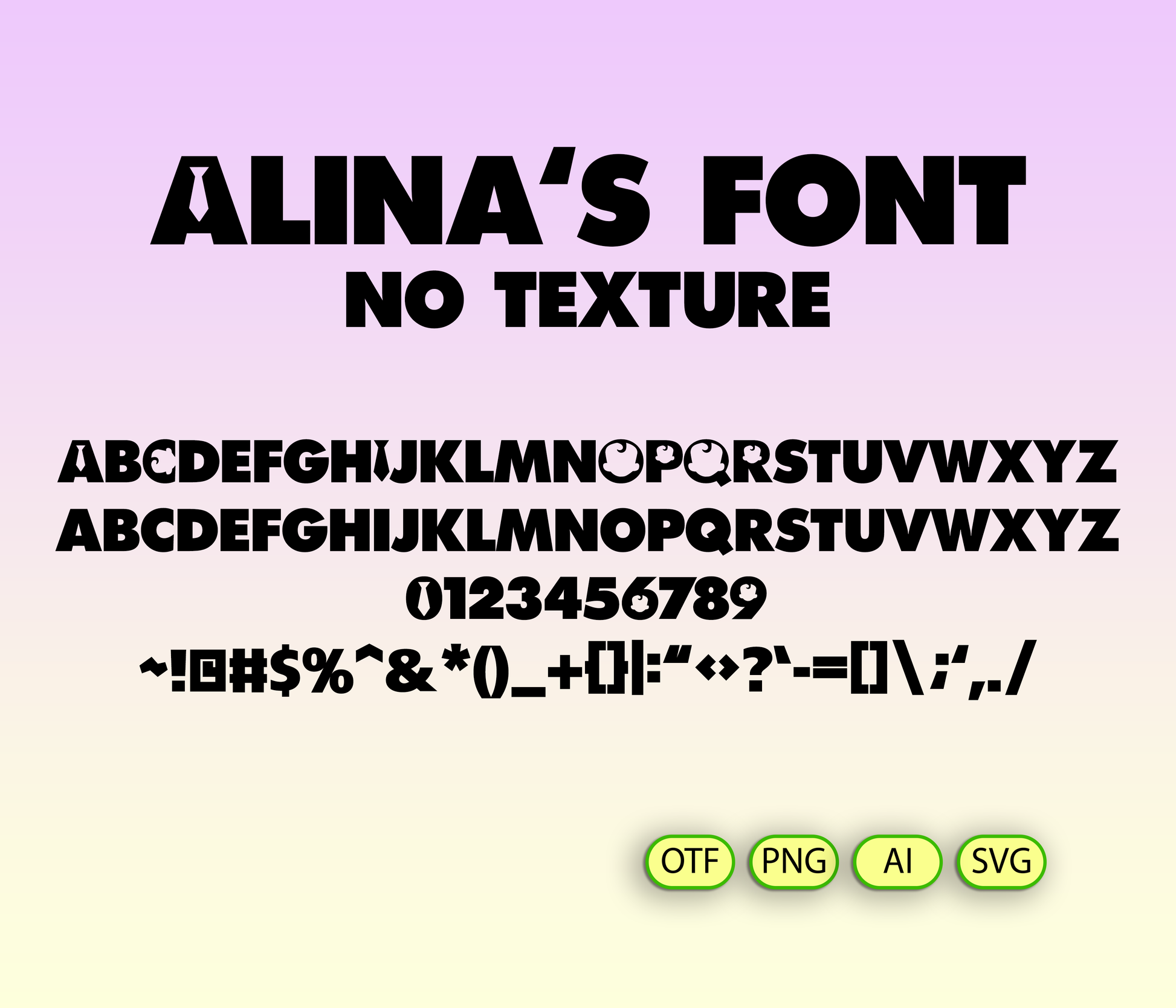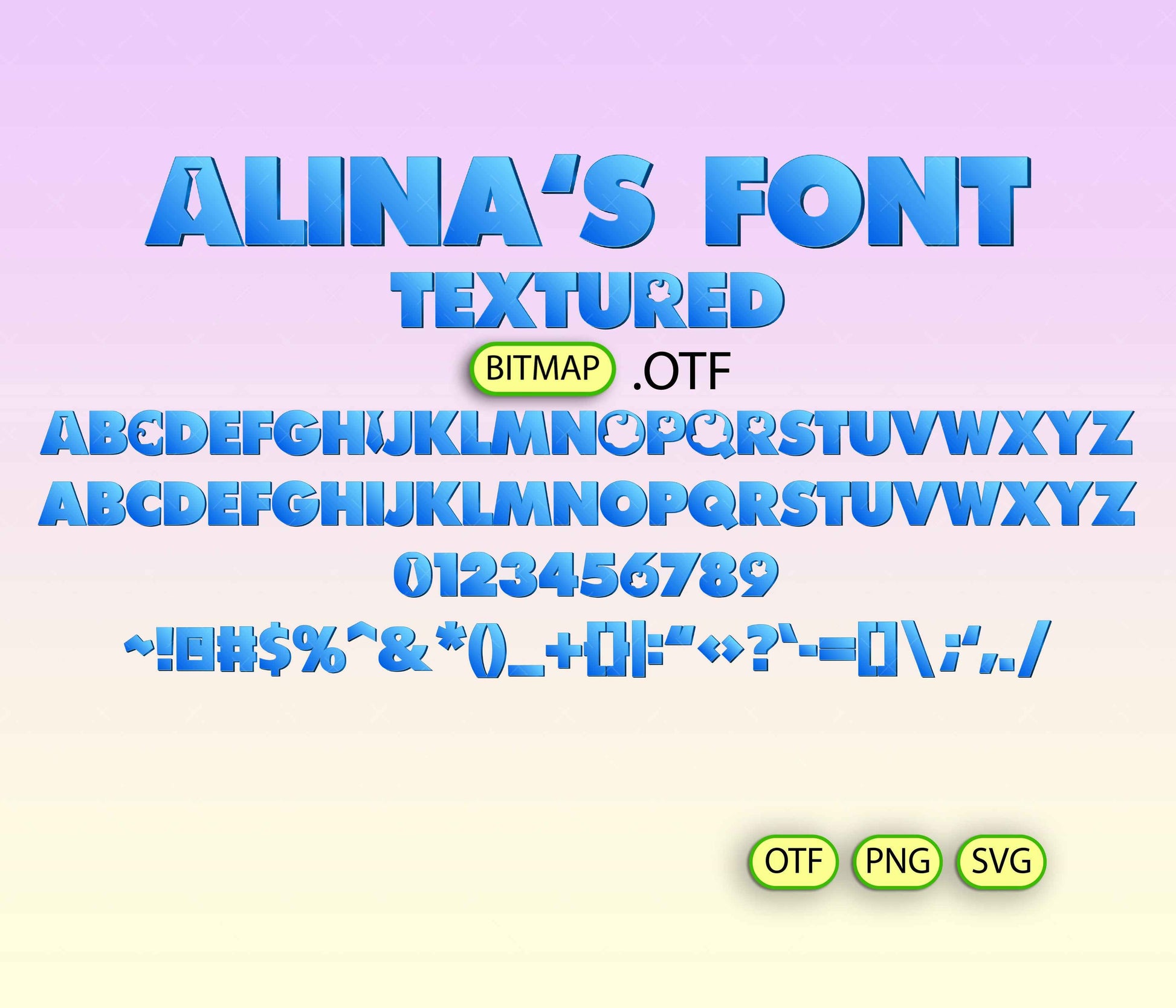
Business Baby Font Textured
Tiny Tycoon Textured Font: A Business Baby-Inspired Typeface
Unleash the inner boss in every baby with our Tiny Tycoon Textured Font inspired by the whimsical world of a business-minded infant. This digital typeface is nothing short of a playground for your imagination, offering a blend of playful curiosity and corporate crispness, just like a diaper-clad executive!
Each letter is textured with a dash of daring, ready to take on the big, bold world of business or the colorful chaos of a kid's birthday bash. Whether you're designing delightful birthday invitations, cheeky cake toppers, or branding your next entrepreneurial escapade, this font is ready to lead the charge from the highchair to the high boardroom.
Dive into a realm where crayons meet corporate, and every letter holds the promise of adventure and aspiration. With the Tiny Tycoon Font, your designs won't just speak; they'll shout with the boisterous boldness of a baby boss. So, why play it safe in the sandbox when you can rule the corporate jungle gym with typography that's as fun as it is formal?